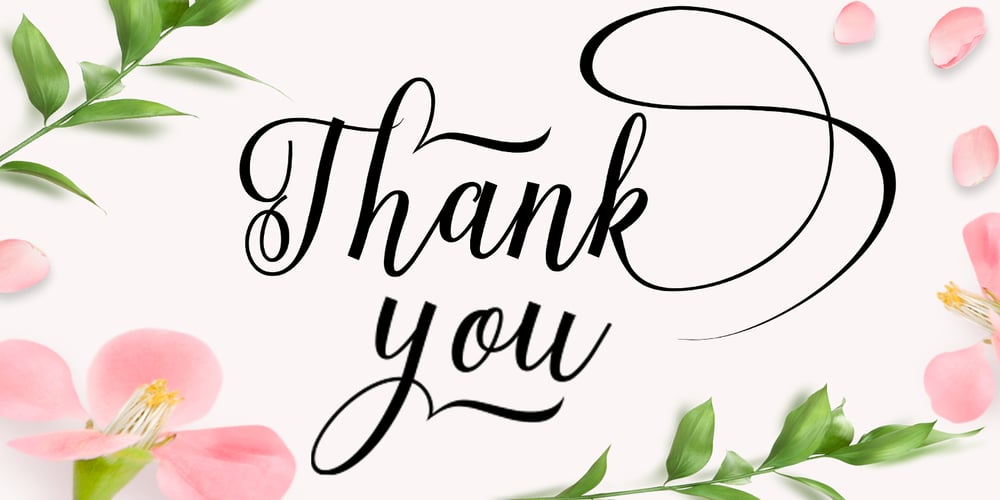
Herochin Font Family was designed by Teuku Muslyawan and published by DonyaDesign. Herochin contains 1 styles and family package options. Herochin is a modern calligraphy design, including Regular. This font is elegant and beautiful with swash. Can be used for various purposes. such as logos, product packaging, wedding invitations, branding, headlines, signage, labels, signatures, book covers, posters, quotes, etc. Herochin chooses changes to the OpenType, Bond and international language styles for reviews of Most Western Languages. To activate the OpenType Stylistic alternative, you request a program that supports the OpenType feature such as Adobe Illustrator CS, Adobe Indesign & CorelDraw X6-X7, Microsoft Word 2010 or a newer version. How to access all alternative characters using Adobe Illustrator: https://www.youtube.com/watch?v=XzwjMkbB-wQ Herochin coded PUA Unicode, which was given full access to all additional characters without having special design software. Mac users can use the Letter Book, and Windows users can use Character Maps to view and use one of the characters to paste into your favorite text editor / application. How to access all alternative characters, use Windows Character Map with Photoshop: https://www.youtube.com/watch?v=Go9vacoYmBw If you need help or have questions, please let me know. I am happy to help: Thank you & Congratulations on the Design